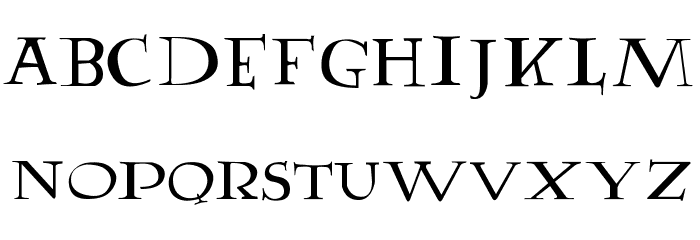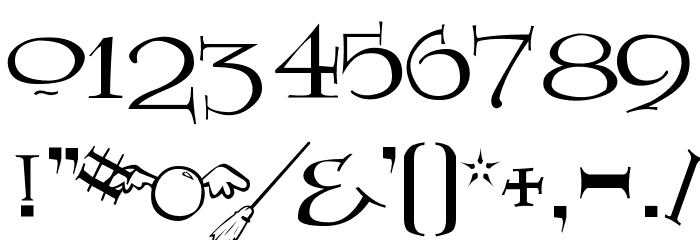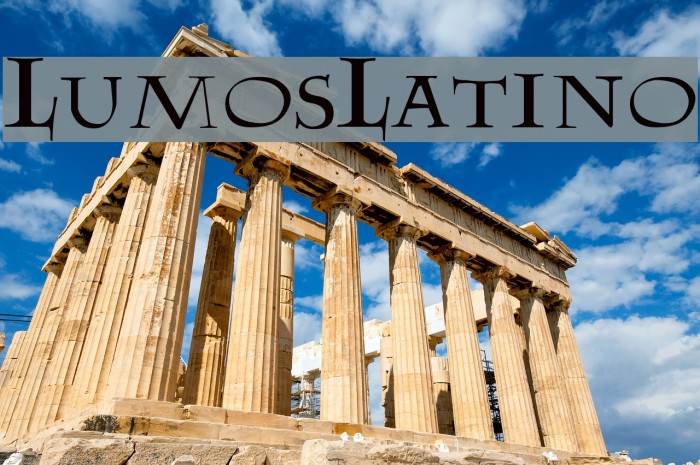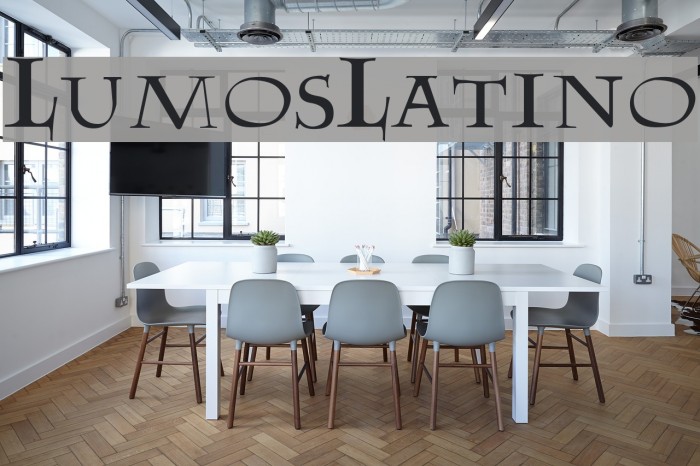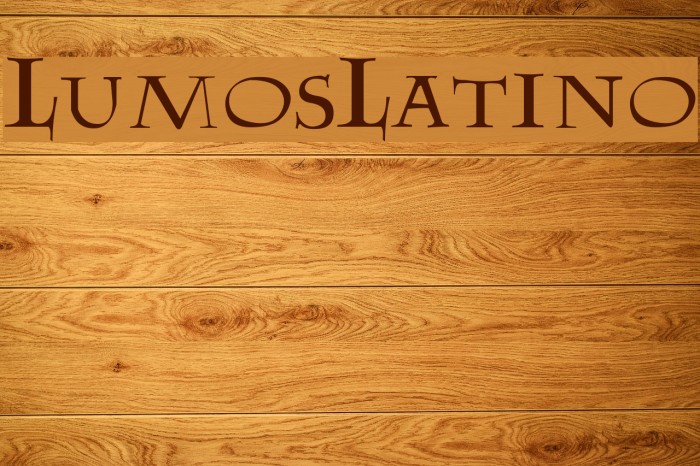
LumosLatino Font
This font features a whimsical and magical design, reminiscent of fantasy themes. The characters are adorned with unique embellishments, such as stars and lightning bolts, giving them a mystical appearance. The uppercase letters are bold and striking, with sharp serifs and distinctive curves. The lowercase letters maintain the same enchanting style, ensuring consistency throughout the typeface. Numbers and special characters are equally stylized, incorporating elements like wings and wands, which add to the overall fantasy aesthetic. This font is perfect for projects that require a touch of magic and creativity.
A whimsical, fantasy-themed font with magical embellishments.
- Proposed Projects: Ideal for fantasy book covers, magical event invitations, themed posters, and creative branding.